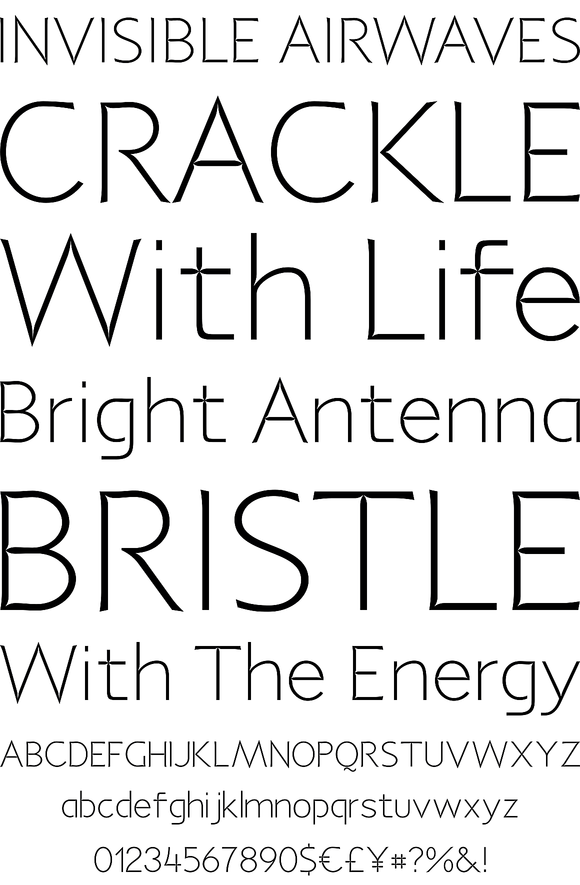
P22 Coda Pro
Foundry: IHOF
Coda Pro is a simple but decorative and controlled sans serif design. Coda literally means tale (Italian, from latin cauda) and refers to the way the letters h, m and n stretch below the writing line towards the end of a sentence or before a final stop. Coda Pro is an elegant and contemporary font suited for display purposes.
Torleiv Sverdrup has been a freelance graphic designer for more than 20 years. Since 2005, he has spent most of his time working on type design. "I get inspiration wherever I go. Whenever I get an idea, I start from scratch, working with just a couple of letters. These letters then serve as a "matrix" for the remaining letters. The final result is often quite different from my initial idea, as I let things evolve as they go. The creative process is the drive, the engine, of my work: it is like a voyage during which you have enter many hitherto unknown ports of call."